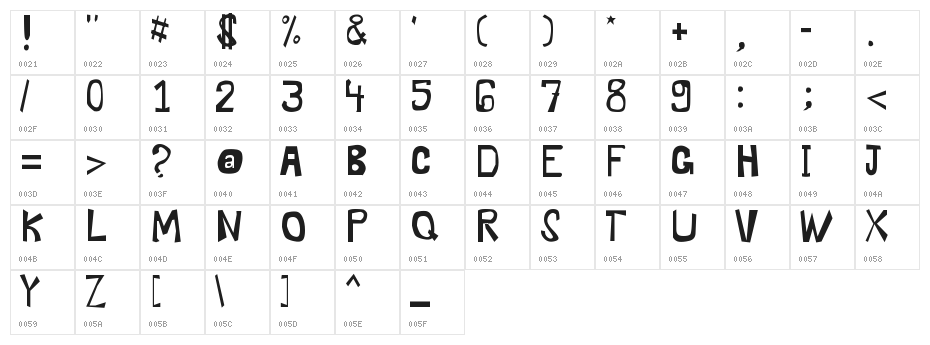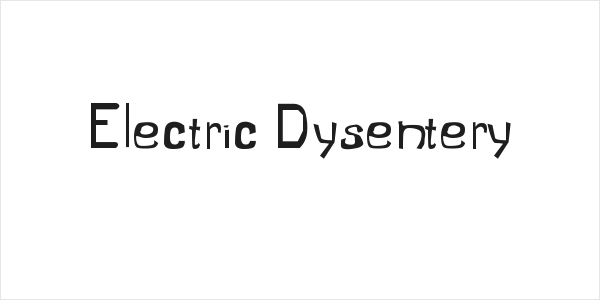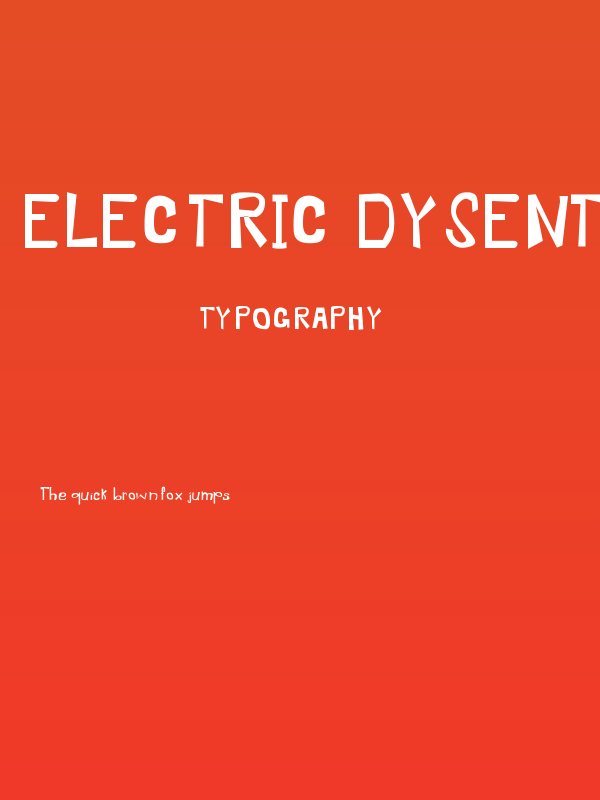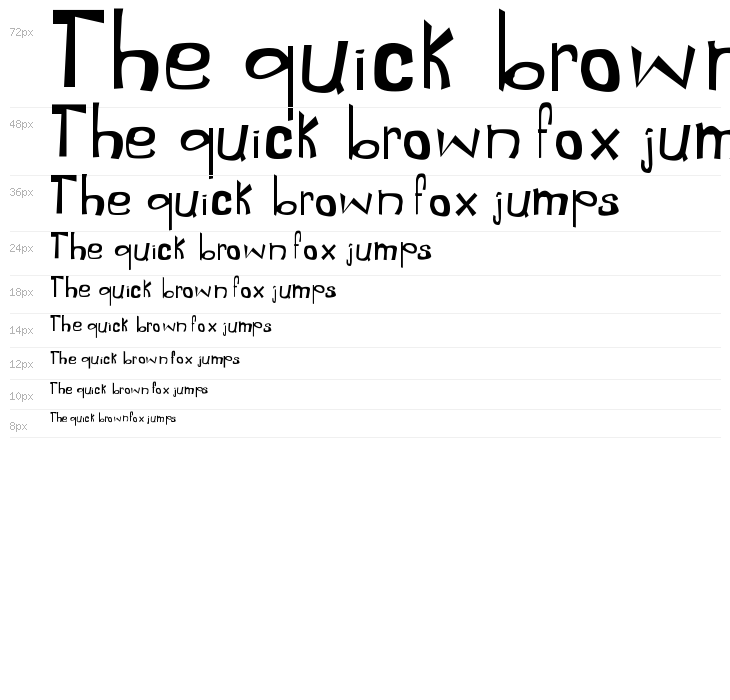
Electric Dysentery Font
Electric Dysentery Description
This font presents a quirky and eclectic style, characterized by its uneven and playful letterforms. The uppercase letters exhibit a bold and irregular design, with some characters featuring unique cutouts and exaggerated strokes. The lowercase letters continue this whimsical theme, with varying heights and unexpected curves. Numbers are bold and maintain the playful aesthetic, while special characters add to the font's distinctive personality. The overall appearance is dynamic and unconventional, making it stand out in any design project.
| Proposed Projects | Ideal for creative projects such as posters, album covers, children's books, and branding for playful or unconventional brands. |